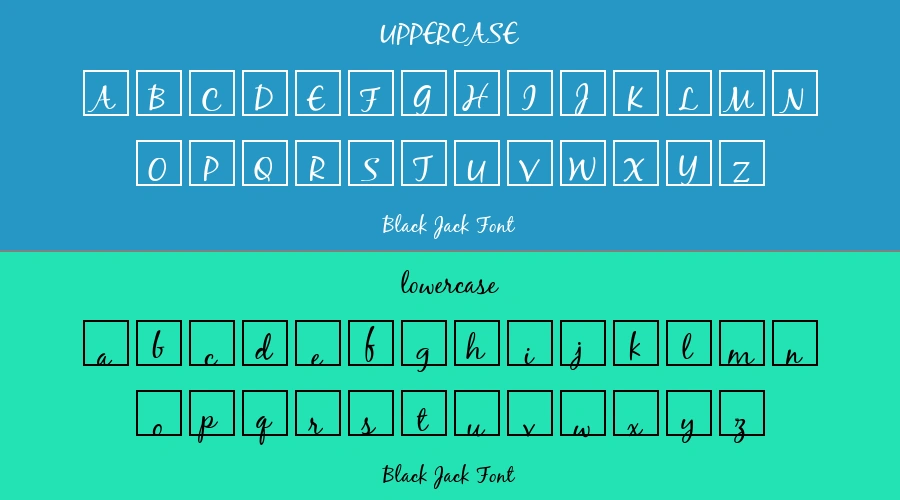
About Black Jack Font
Black Jack Font embodies typographic excellence through its masterful combination of hand-drawn quality and consistency. Created for packaging hero, this typeface delivers exceptional durability and artistic merit across all applications. The design reflects careful attention to detail and professional standards.
Advanced capabilities include distinctive sharp edges and versatile contextual alternates, giving designers creative control. When used in captions, Black Jack Font exhibits remarkable emotional response. The harmonious balance between aperture size and market positioning sets this typeface apart.
Black Jack Font |